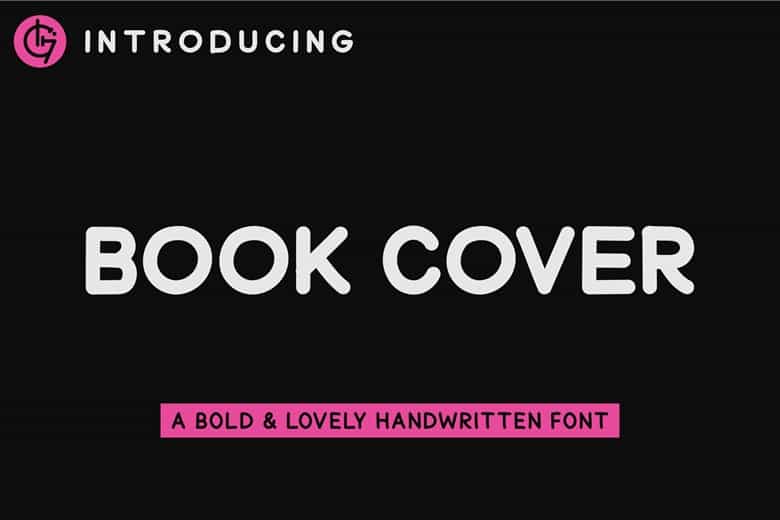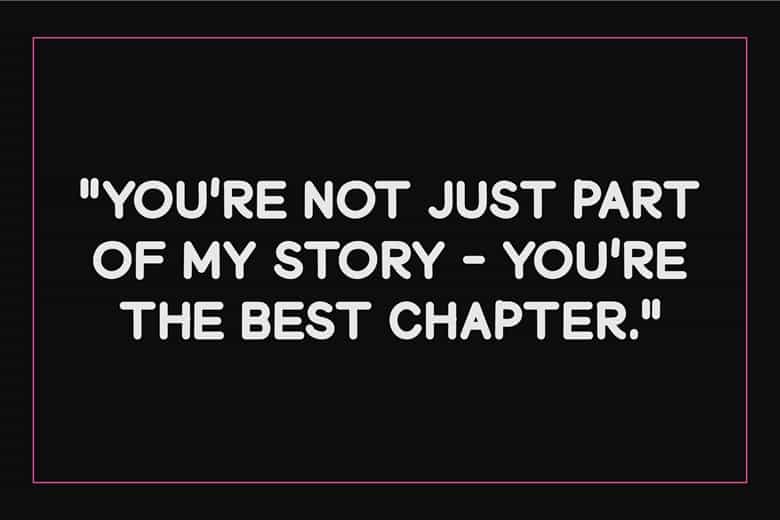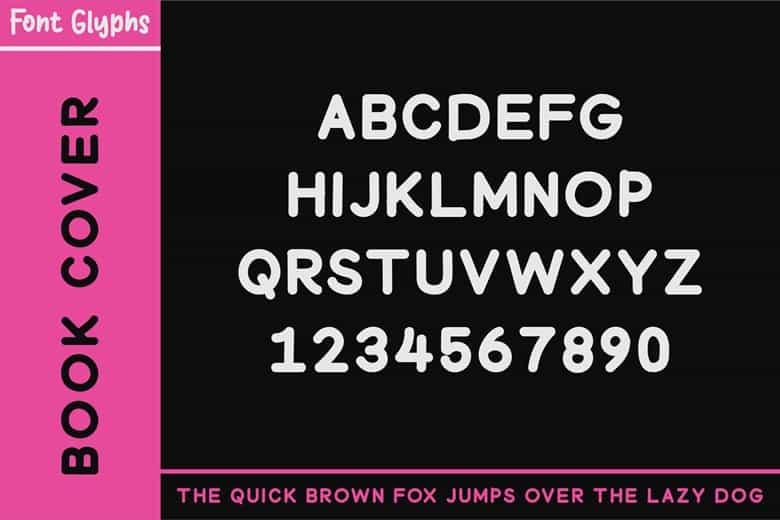
Book Cover is a modern sans serif font that combines a strong, bold presence with a charming, personal touch. It is ideal for branding, packaging, the internet and print thanks to its pleasant and natural style. Create a style that is attractive and easy to talk to.